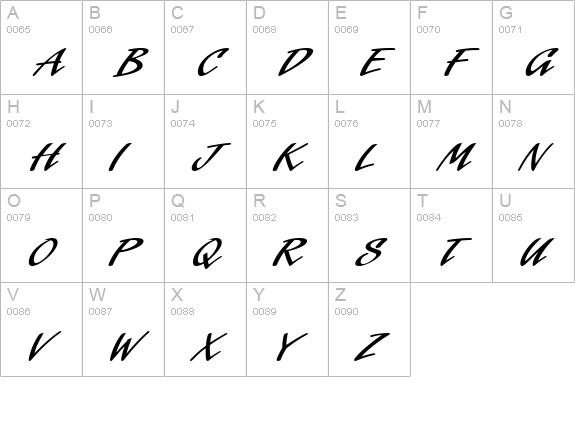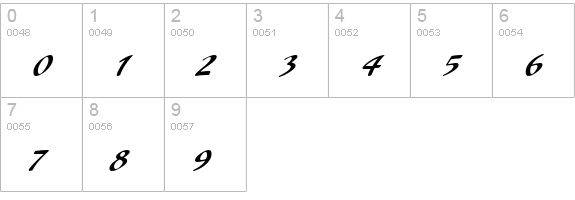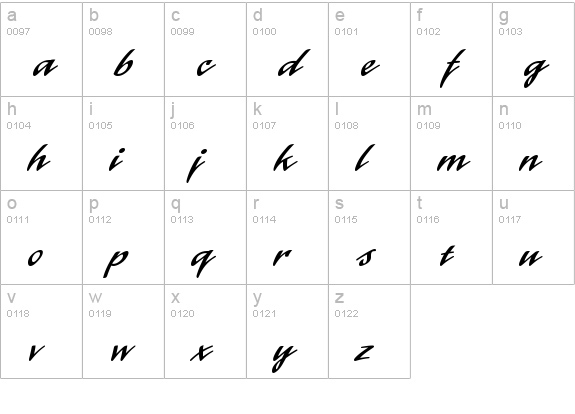
Introducing Laser ICG font, a stunning display typeface that exudes modernity and sophistication. With its sleek lines and sharp edges, this font is designed to make a bold statement in any project it is used in. Laser ICG is the perfect choice for those seeking a contemporary look and feel, whether it be for logos, headlines, posters, or branding materials. This versatile font offers a wide range of stylistic options, allowing you to customize and personalize your designs with ease. Whether you prefer the clean and minimalist style or the more decorative and ornate variations, Laser ICG has got you covered. But what truly sets Laser ICG font apart is its accessibility. It is available for free download at FontsMarket.com, making it easily accessible to designers, creatives, and enthusiasts alike. This means you can instantly enhance your projects without breaking the bank or compromising on quality. The free availability of Laser ICG font is a testament to the generosity of its creators, who understand the importance of providing valuable resources to the design community. So why wait? Head over to FontsMarket.com and unleash your creativity with Laser ICG font. Elevate your designs, captivate your audience, and make a lasting impression with this visually striking typeface.